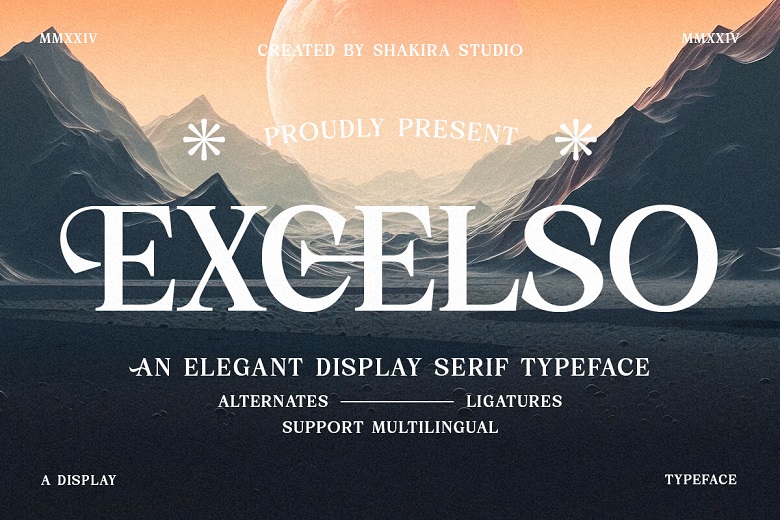
Excelso Font
Excelso is an Elegant Serif fonts that aims at giving elegance to to the designs all over the world. This font exists in both, regular and italic forms and can be used for rich variety of tasks, ranging from editorial to branding. Having clean and strong features of the serif, Excelso is a font that is perfect for those who need alternates and ligatures to work with as well as for those who need to create a classy and classy project.
Excelso Serif Font